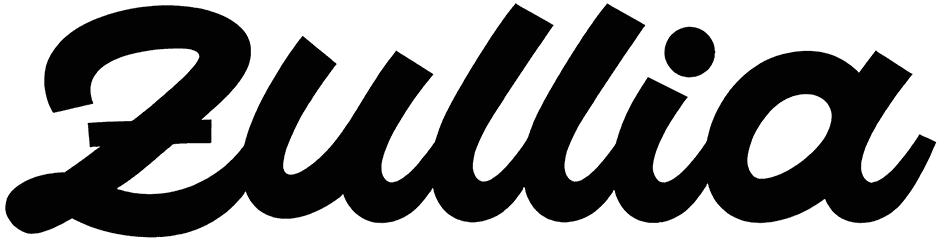
Zullia Font
When you want to have a smooth and formal face for your words, using a script font like Zullia could be a good selection. This cursive font consists of unique, thick characters that have a minimal vibe. You can use the Zullia font for many layouts, namely a college sports event poster, and impress lots of people.